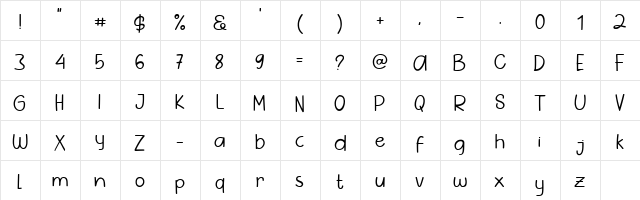
Pig Year Sans Regular
Design Context for Pig Year Sans Typeface
Pig Year Sans offers clean, dependable letterforms without strong stylistic allegiance, making it a practical choice for designers who need flexibility.